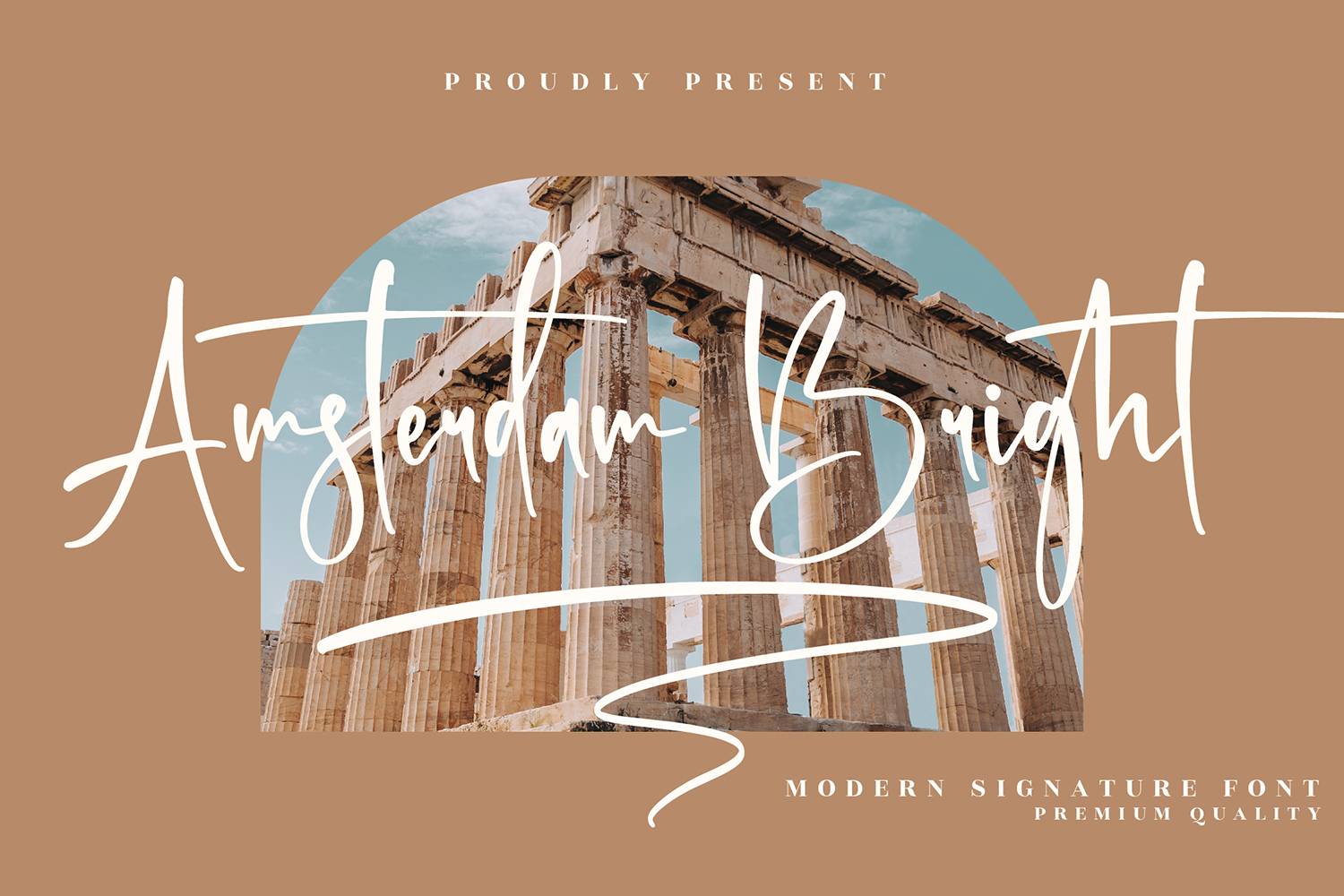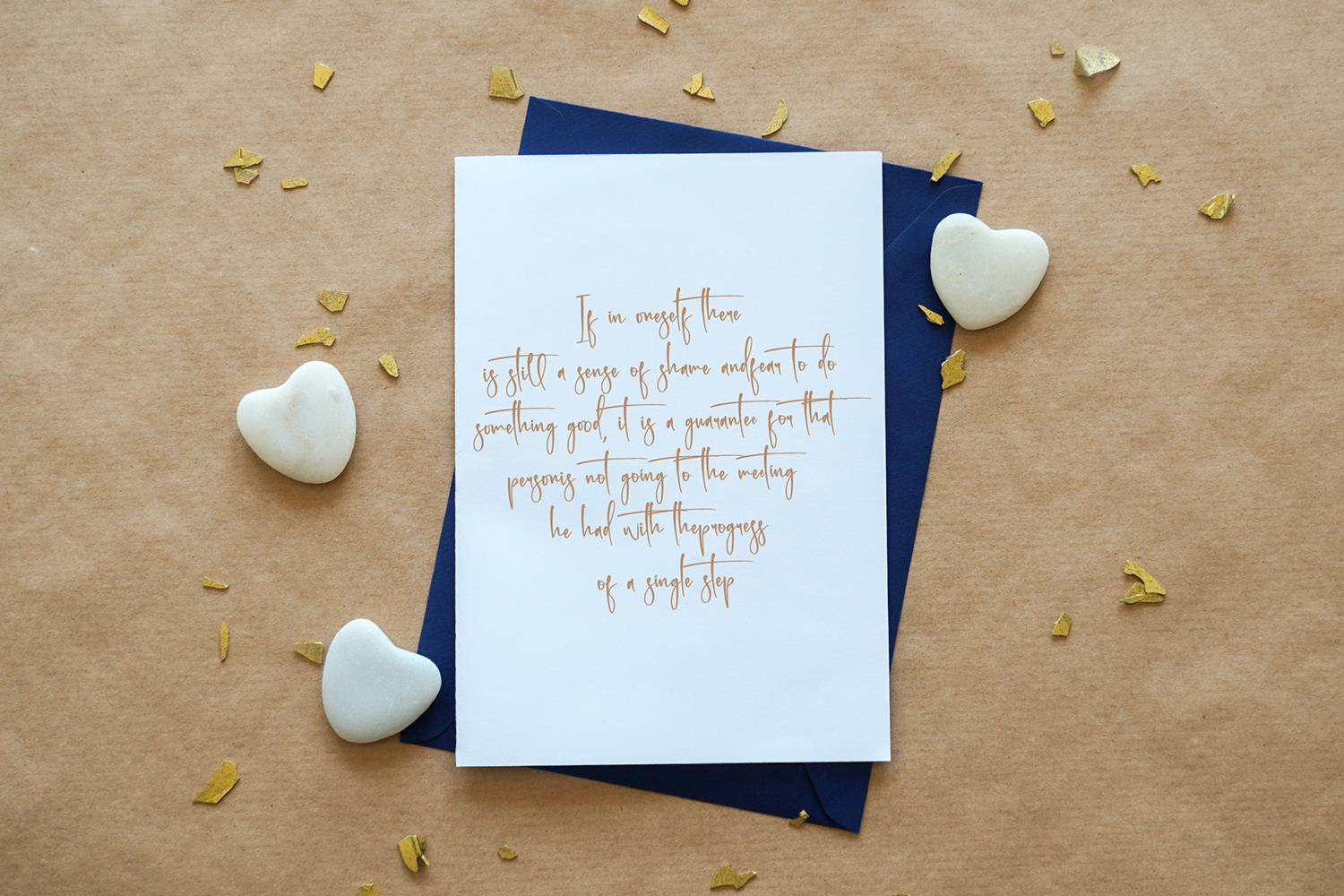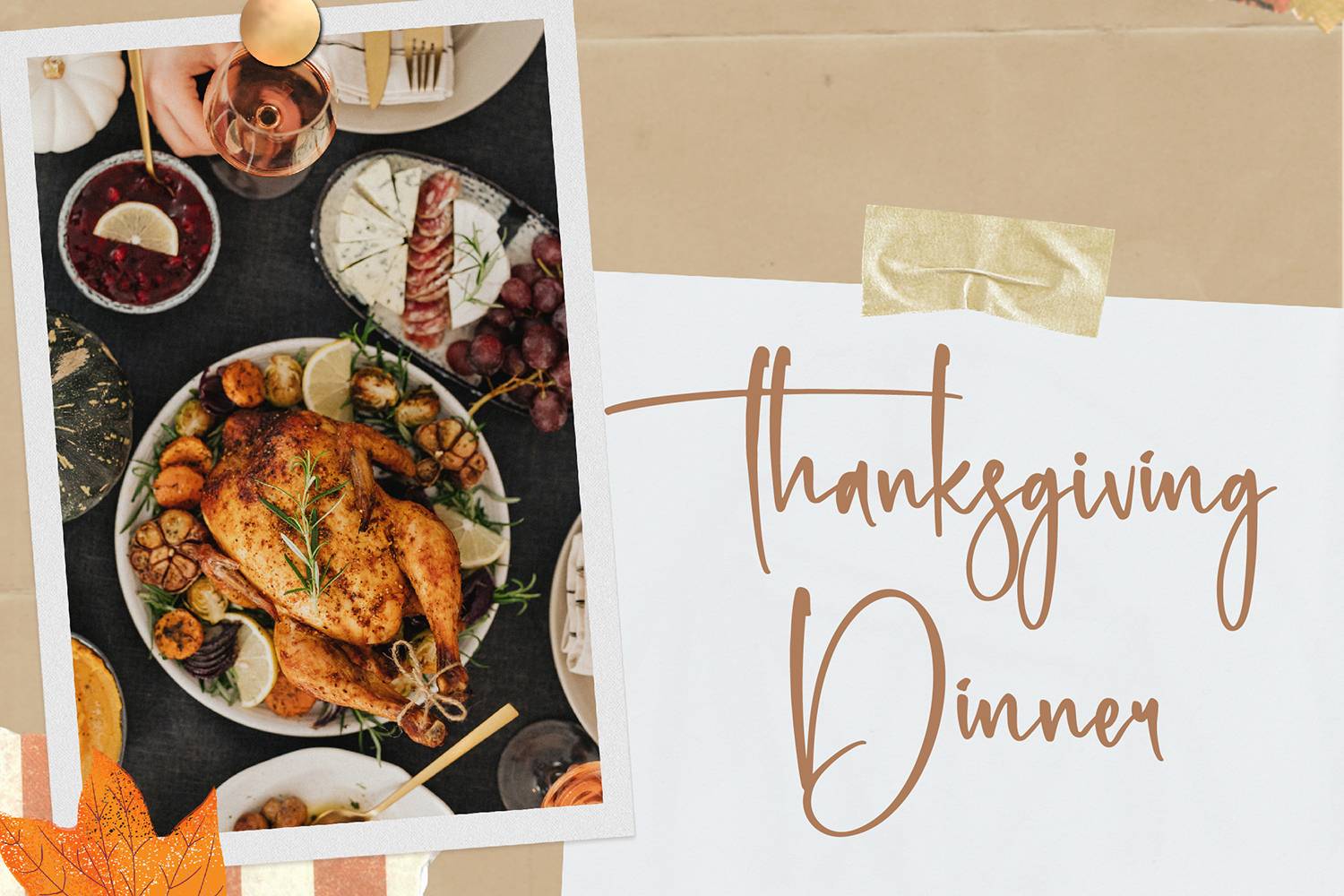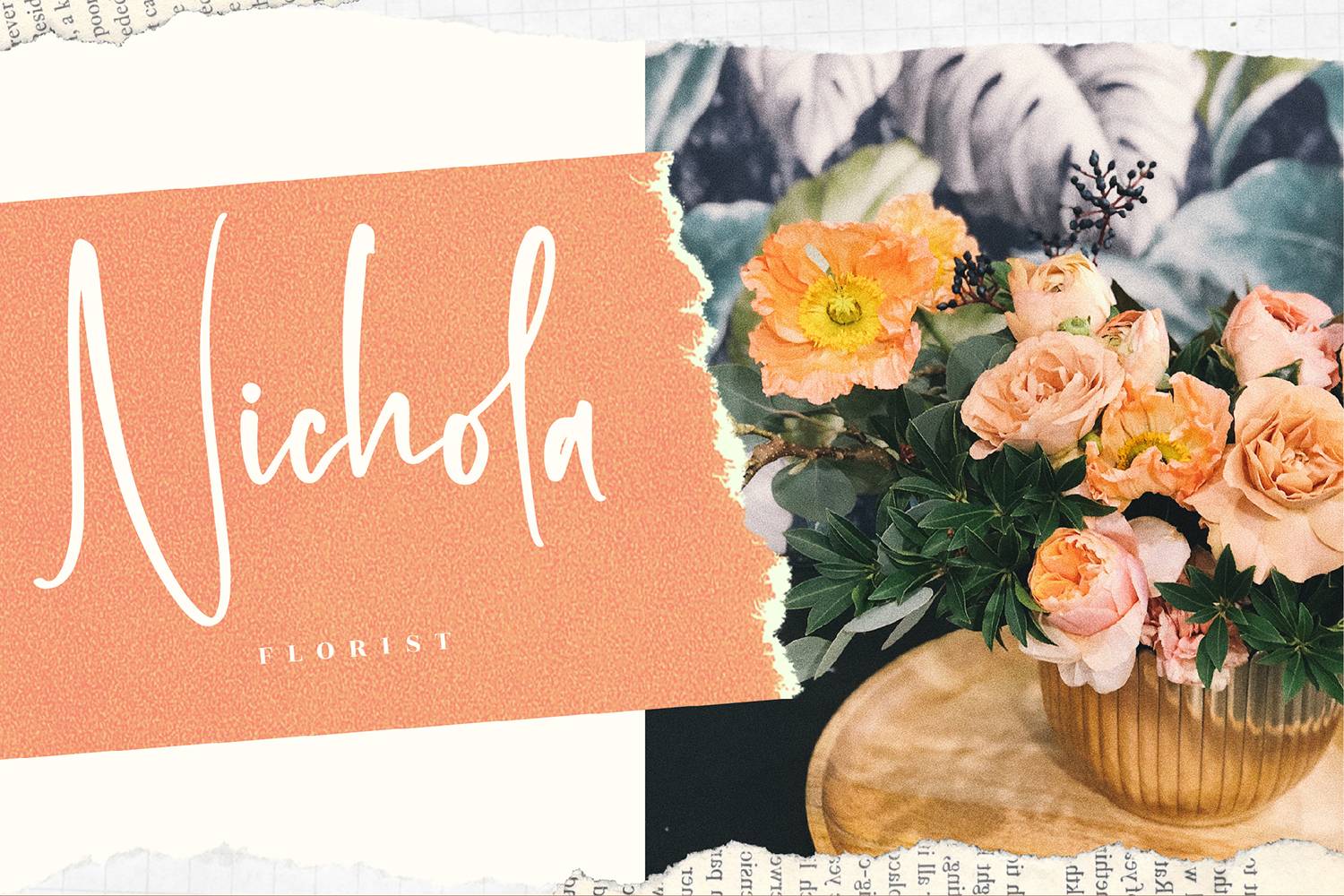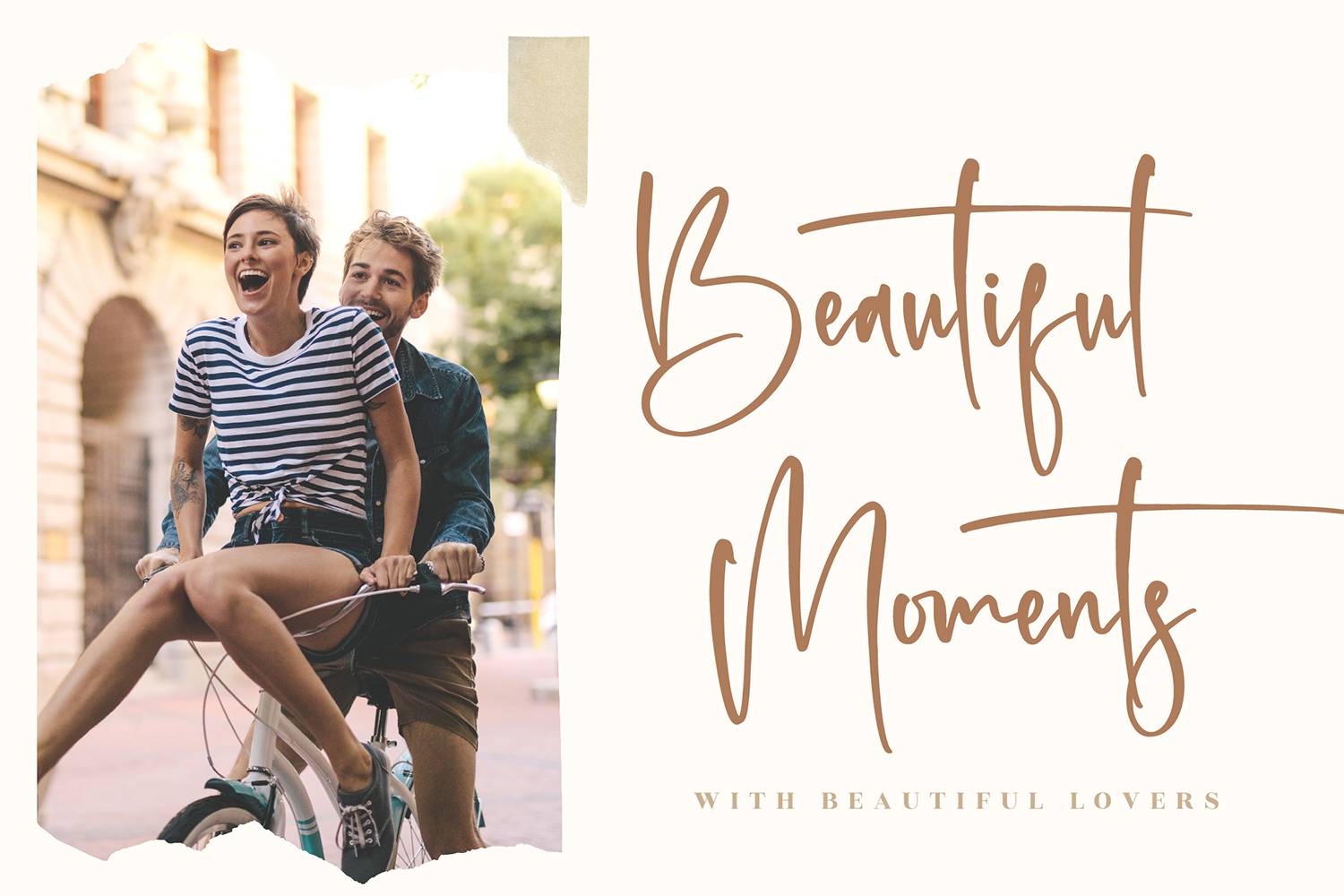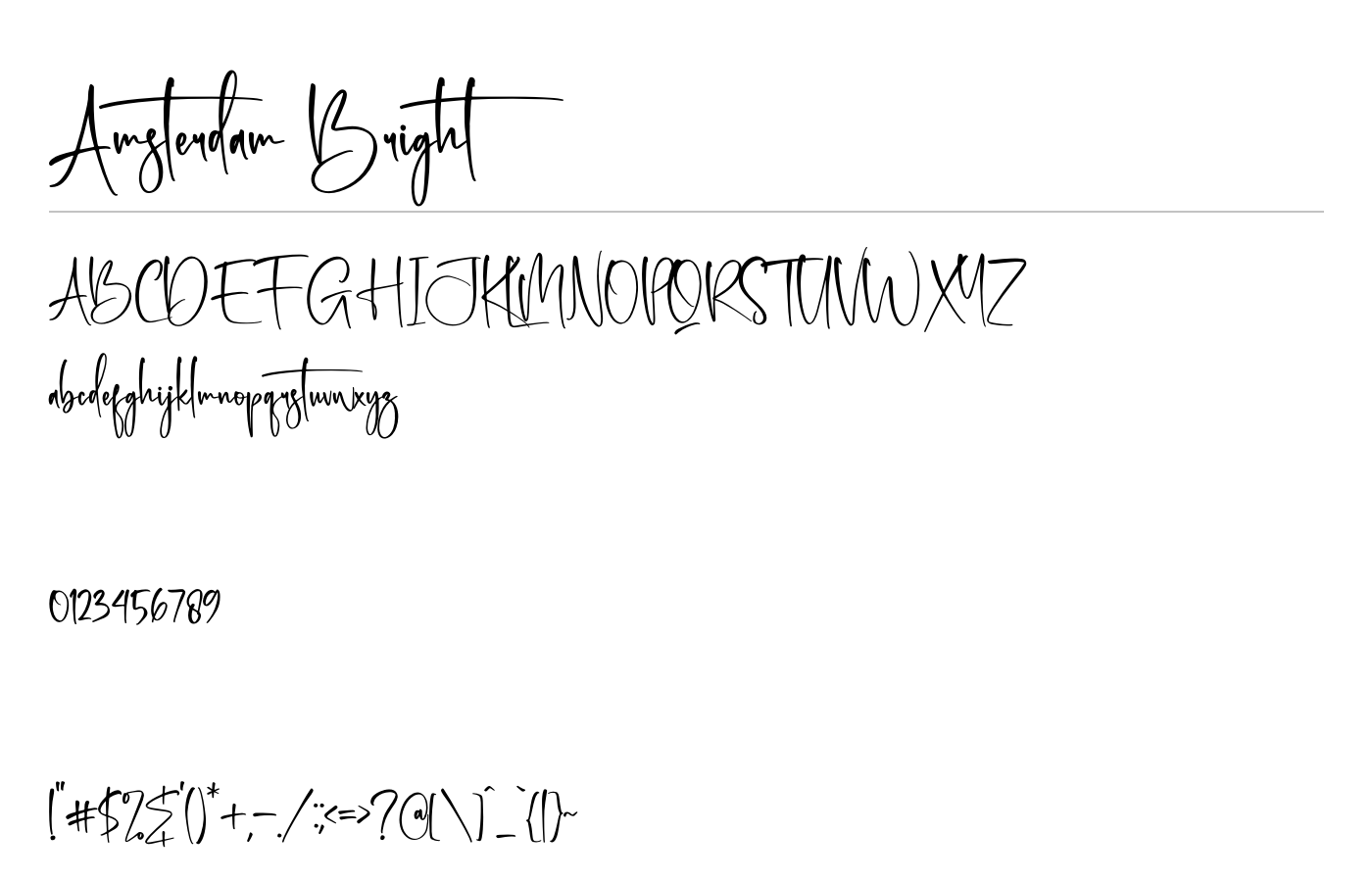
Amsterdam Bright is a lively and elegant handwritten script font with tall, narrow letterforms and a playful, flowing style. Its fine, variable stroke weight and distinctive swashes create a modern and artistic feel, perfect for adding a personal, creative touch to invitations, branding, and stylish editorial designs. This font works beautifully in headlines and logos where a unique, eye-catching personality is desired.
Amsterdam Bright Font
About Amsterdam Bright Font